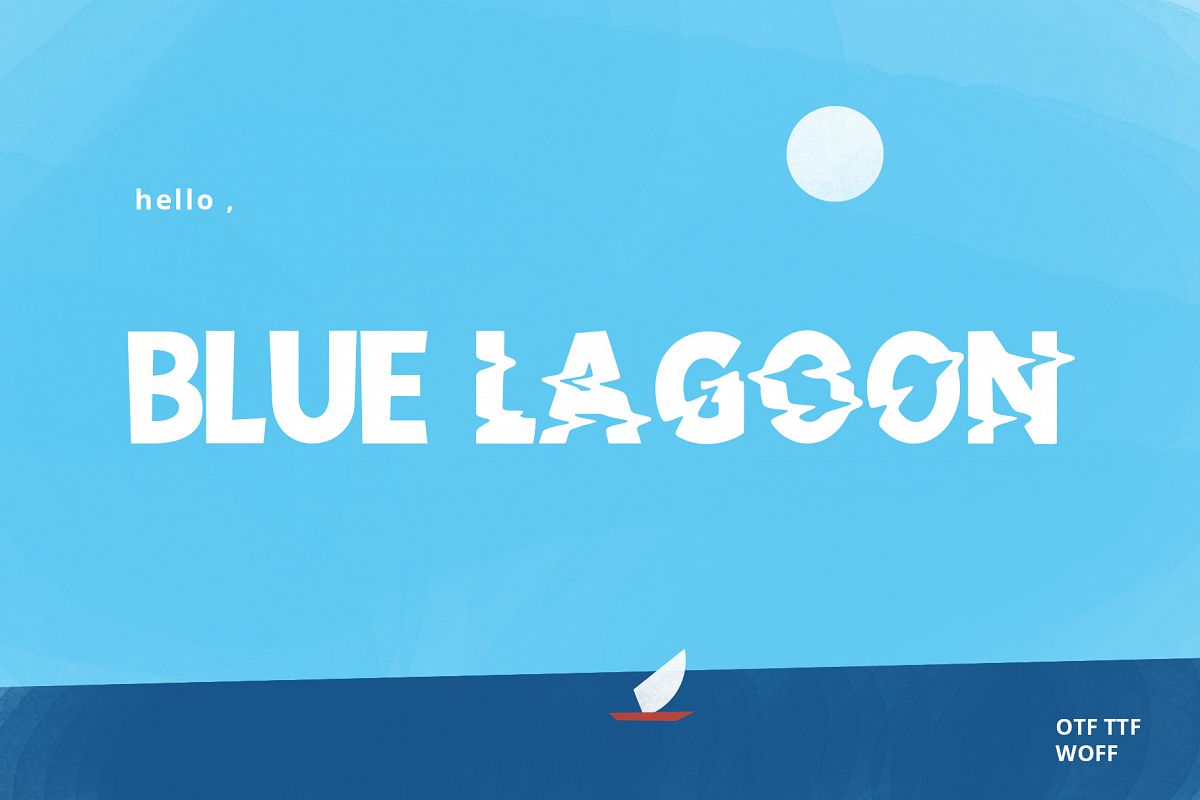
Blue Lagoon font
BlueLagoonWave-Regular
BlueLagoon-Regular
Blue lagoon is a unique, bold and casual font. This font is very suitable for book design, cards, branding, logos and other design needs.